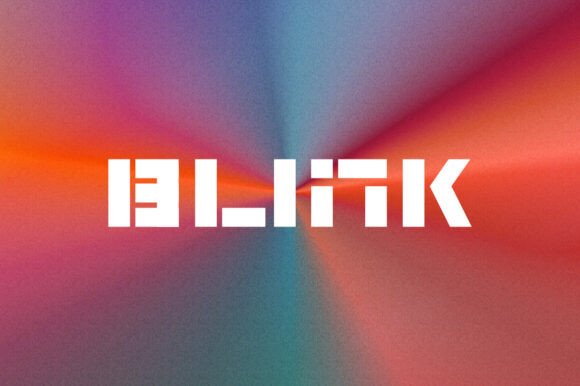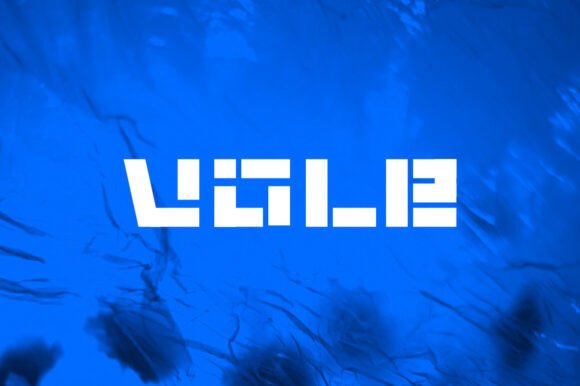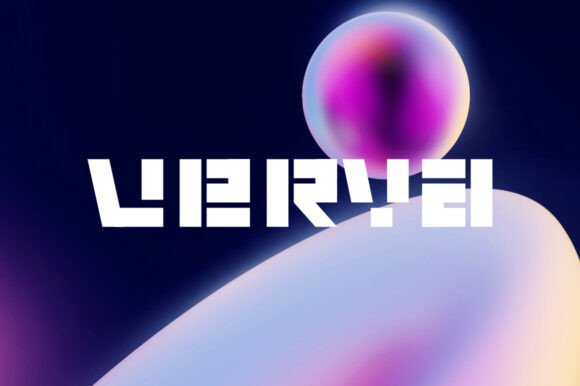
Introduction to Renvem Font
Renvem is a gateway to a universe of pulsating rhythms, electrifying energy, and uninhibited self-expression.
It’s a place where the boundaries blur between reality and euphoria, where the dance floor becomes a spaceship hurtling through the cosmos .
Key Features of Renvem Font
Why Choose Renvem Font?
Renvem Font offers exceptional quality and versatility, making it a valuable addition to your design toolkit. Whether you’re creating for personal projects or commercial use, Renvem Font delivers professional results.